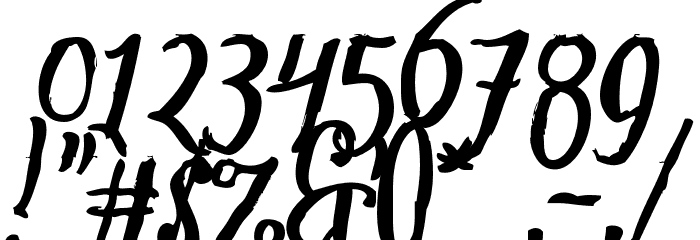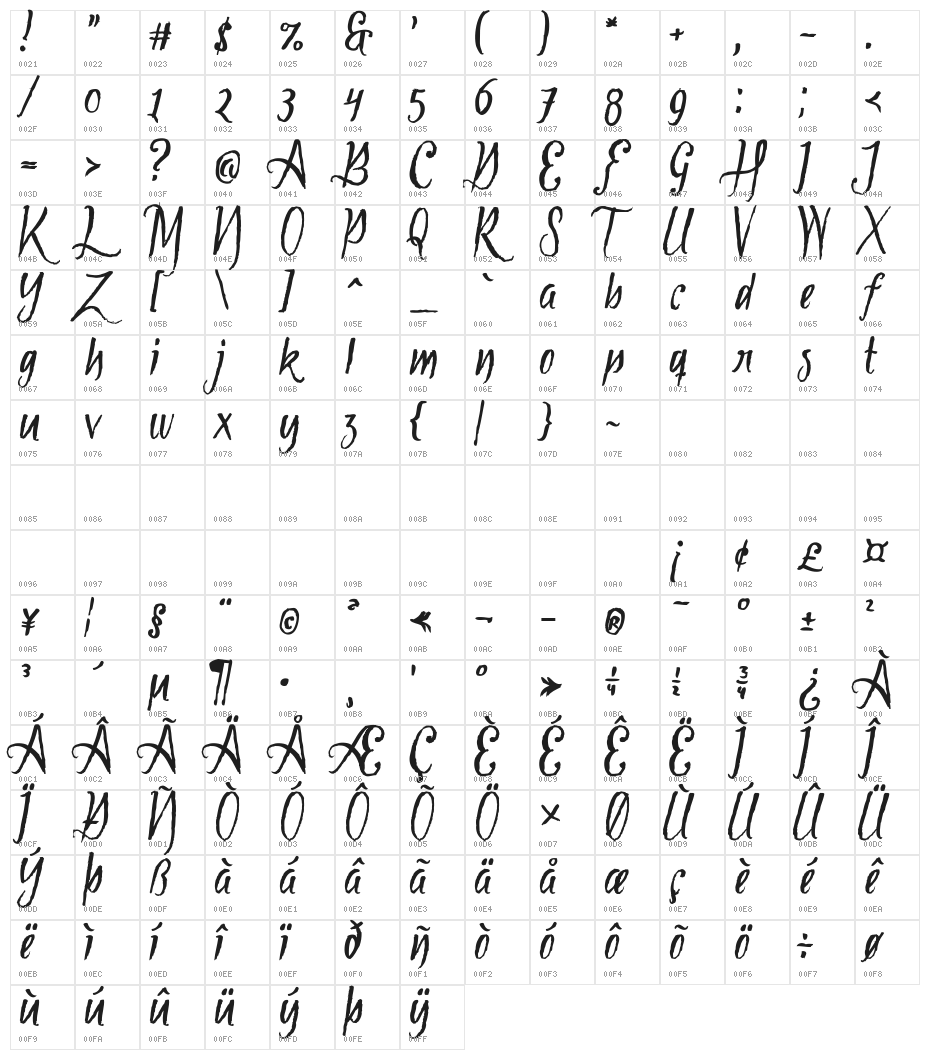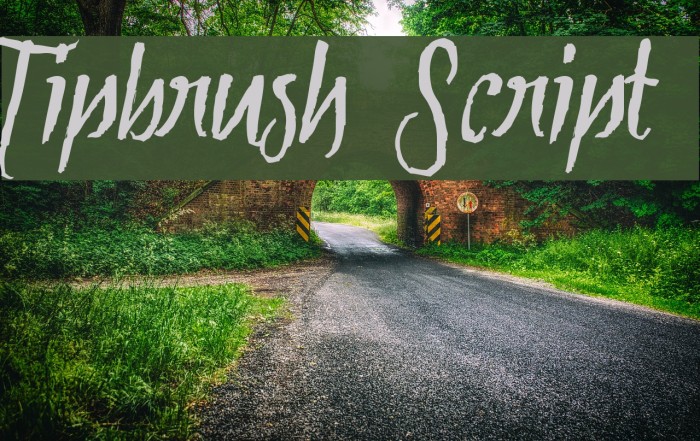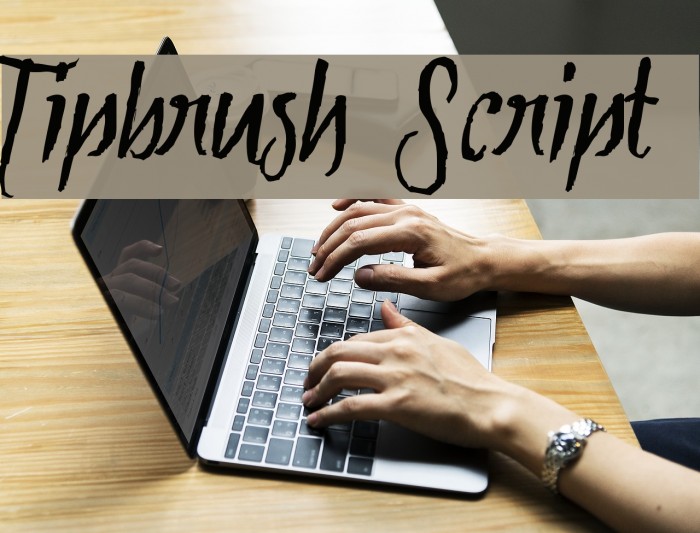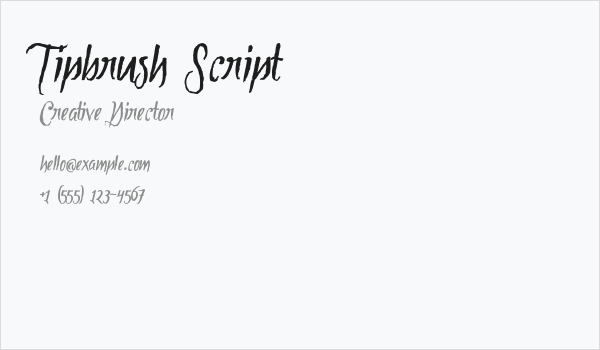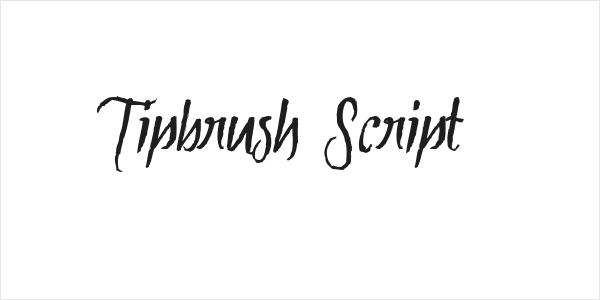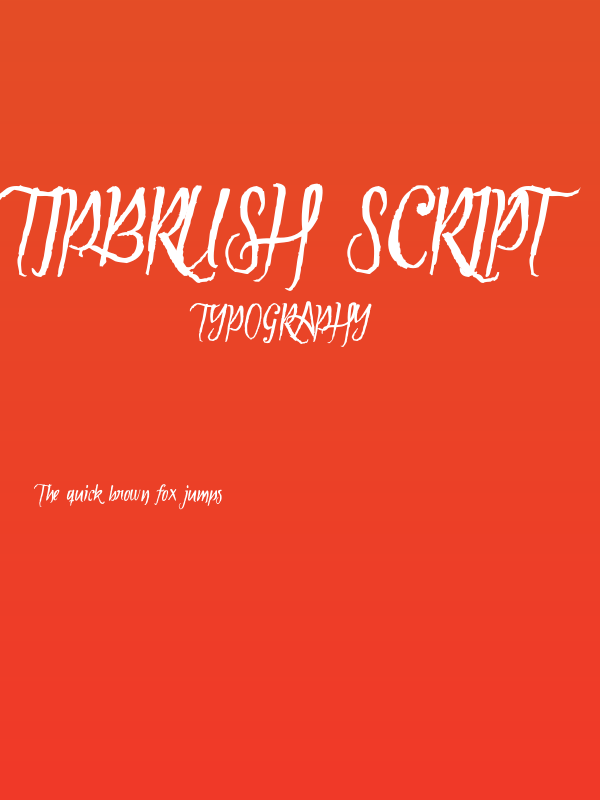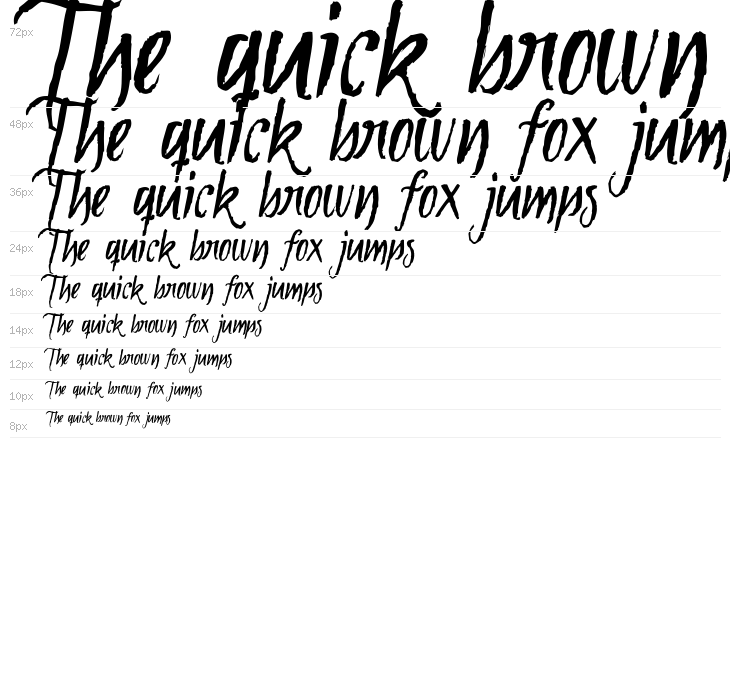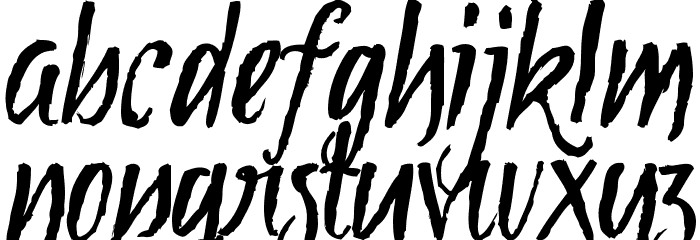
Tipbrush Script Font
Tipbrush Script Description
This font exhibits a dynamic and expressive style, characterized by its fluid, brush-like strokes that convey a sense of movement and energy. The uppercase letters are bold and sweeping, with dramatic flourishes that give them a distinctive, artistic flair. The lowercase letters maintain this fluidity, offering a harmonious blend of curves and angles that enhance readability while retaining a handcrafted appearance. The numerals and special characters are equally expressive, integrating seamlessly with the alphabet to provide a cohesive visual experience. This font's unique style makes it ideal for projects that require a personal, artistic touch.